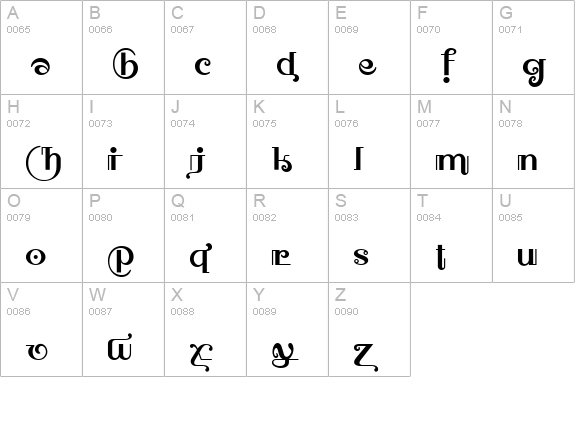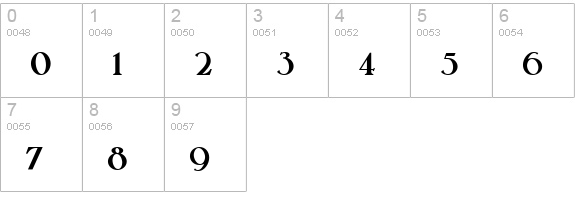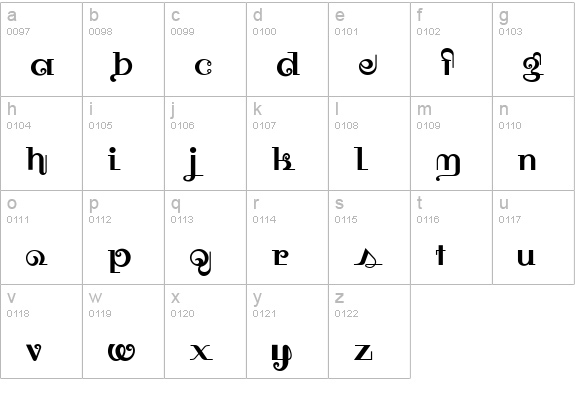
Owah Tagu Siam NF Font Details
Owah Tagu Siam NF font is a beautifully crafted typeface that exudes elegance and sophistication. With its intricate details and unique design, this font is perfect for adding a touch of style to any project. Whether you're designing a logo, creating a poster, or working on a branding project, Owah Tagu Siam NF font will make your text stand out. The best part? Owah Tagu Siam NF font is completely free to download at FontsMarket.com. Yes, you read that right - you can get your hands on this stunning font without spending a dime. So why wait? Head over to FontsMarket.com now and elevate your designs with Owah Tagu Siam NF font.